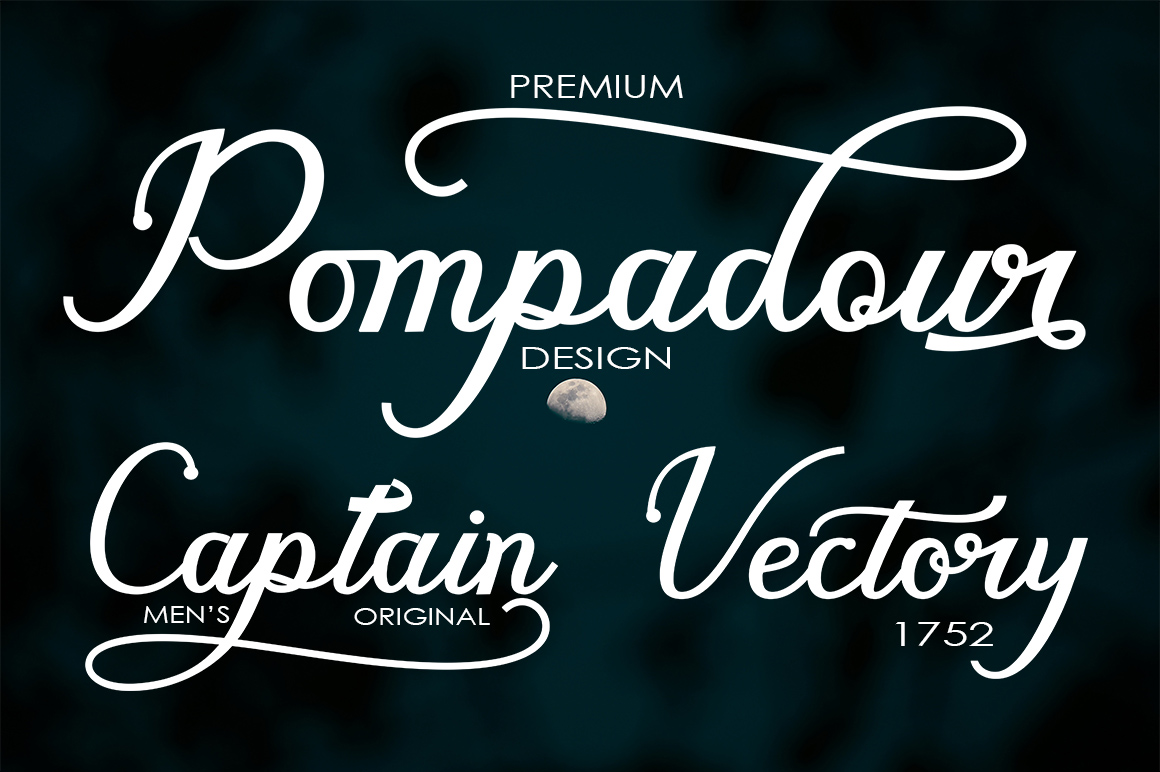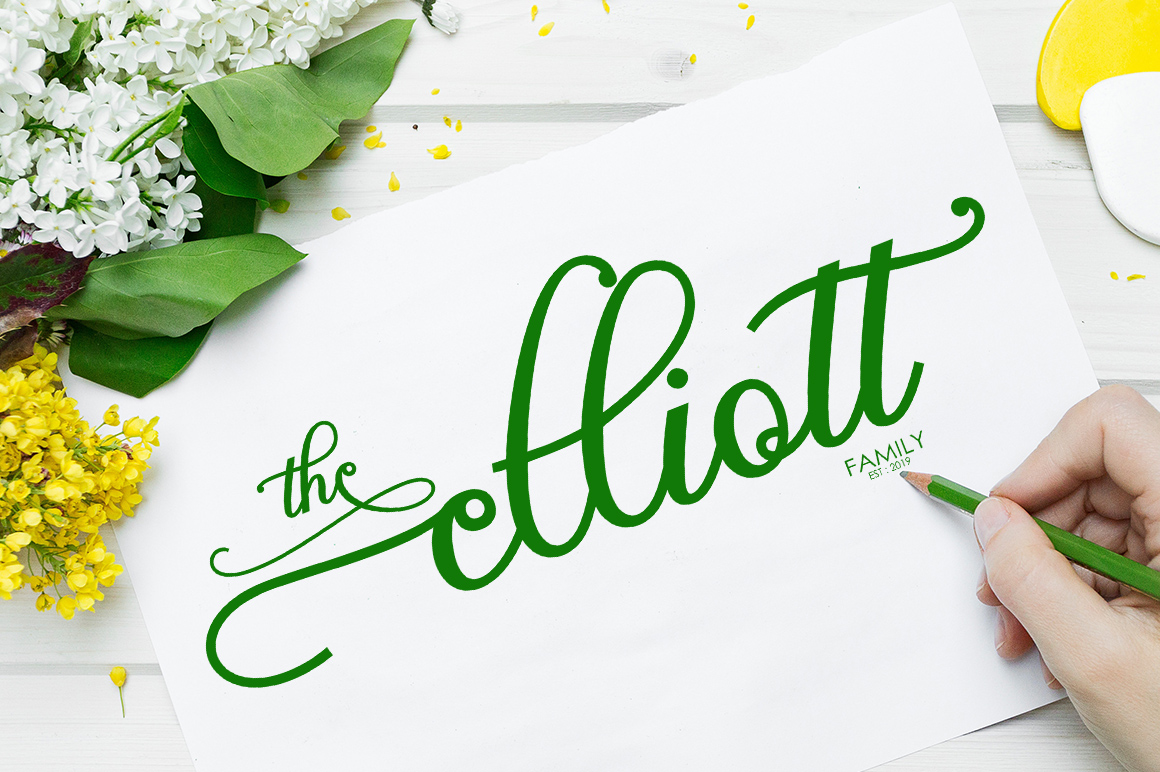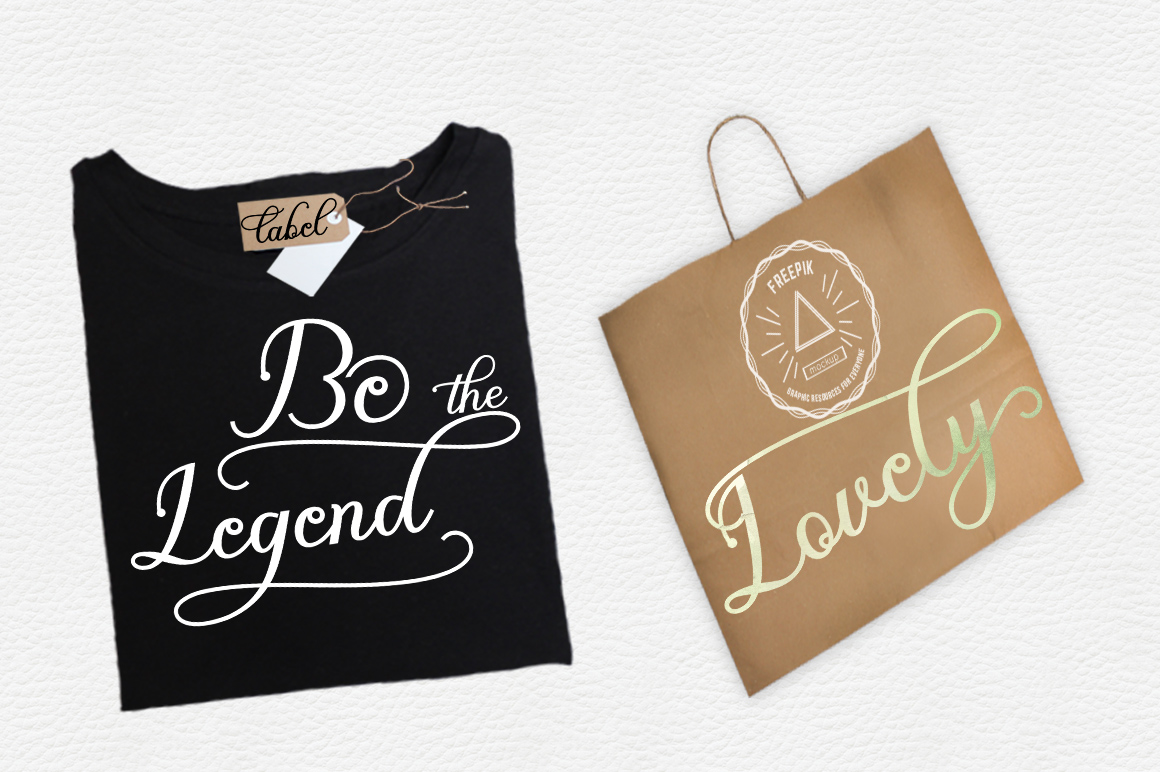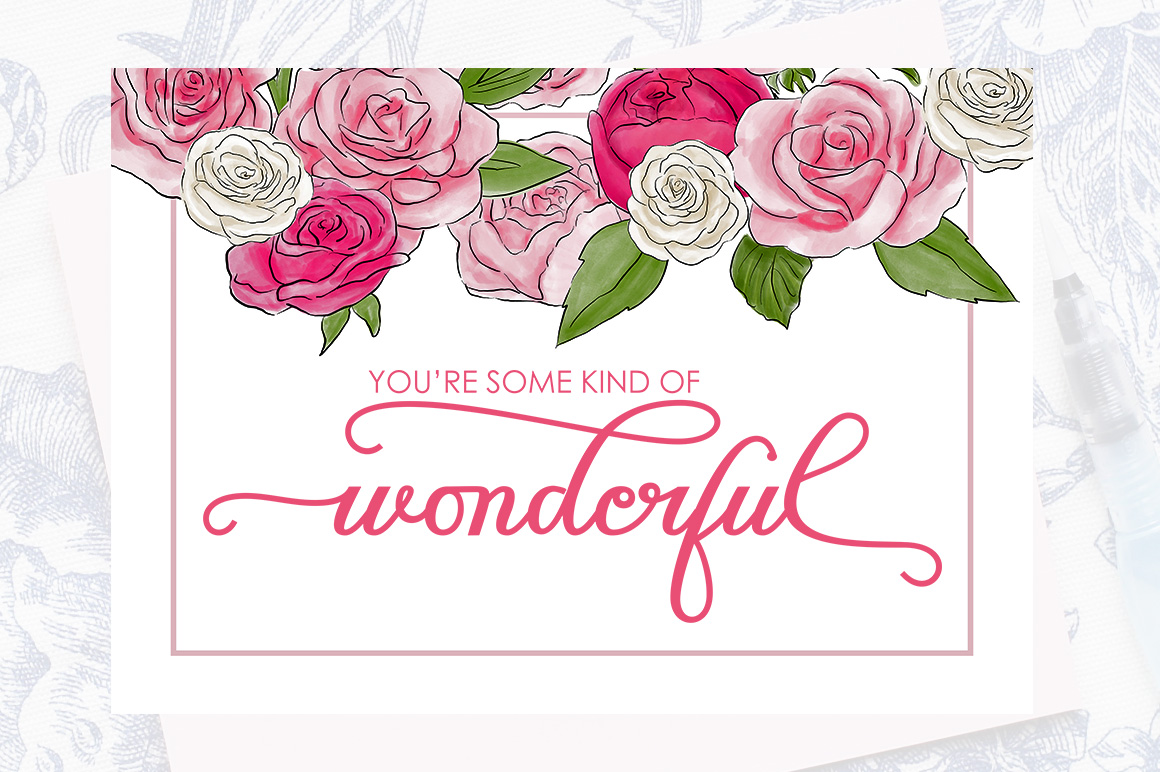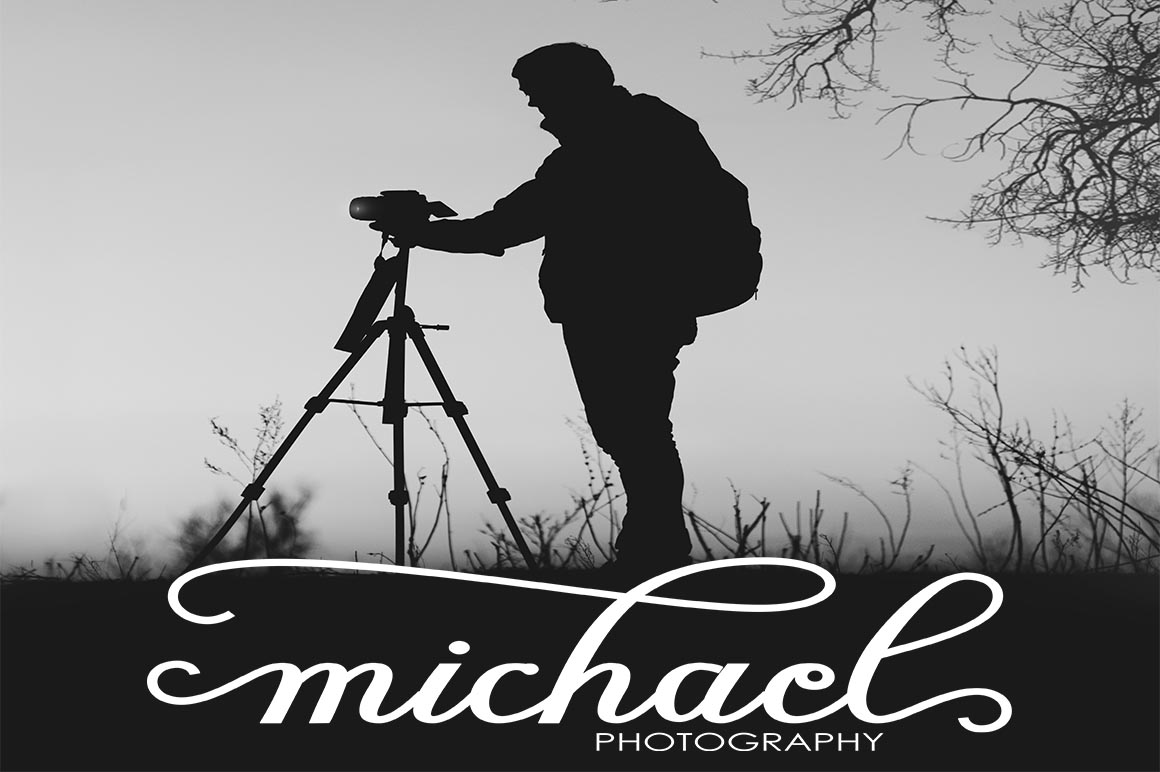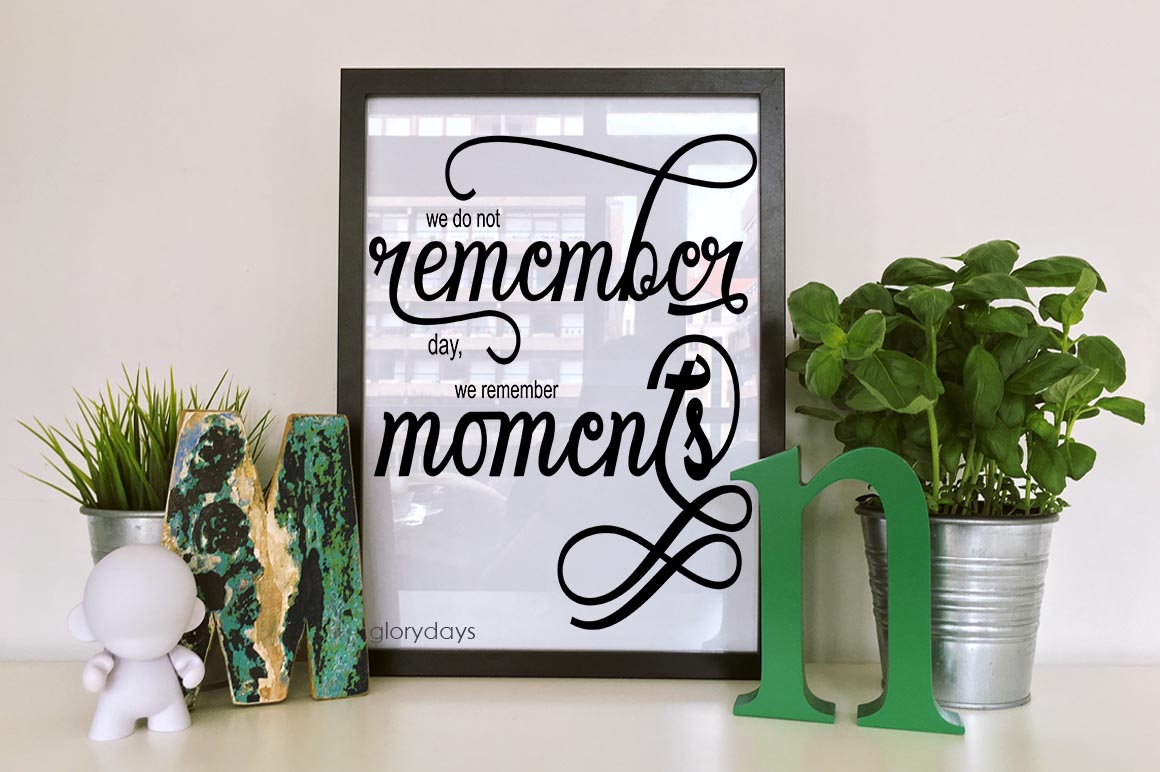
Gloretha Font: Elevate Your Designs with Modern Calligraphy
In the world of typography, few fonts manage to capture the essence of elegance and sophistication as effectively as Gloretha. This modern calligraphy-style design is a versatile and visually stunning addition to any design project, offering both regular and bold variations. What sets Gloretha apart is its exceptional readability combined with beautiful swashes, making it an ideal choice for designers and crafters looking to add a touch of luxury to their work.
The Essence of Gloretha Font
Gloretha is more than just a font; it’s a statement piece for your designs. Its calligraphy style gives it a fluid, dynamic look that’s perfect for headings, titles, and any text that needs to stand out. The font’s design ensures that it’s not only aesthetically pleasing but also highly legible, a balance that can be challenging to achieve. Whether you’re working on a branding project, a wedding invitation, or a packaging design, Gloretha offers the sophistication and elegance needed to make your work memorable.
Key Features of Gloretha
- Modern Calligraphy Style: Gloretha embodies the beauty of modern calligraphy, with flowing lines and elegant curves that add a touch of class to any design.
- Regular & Bold Variations: The font comes in two styles, allowing for flexibility in design. The regular version is perfect for body text and headings, while the bold variation can be used to draw attention or create a focal point.
- Easy to Read: Despite its decorative nature, Gloretha maintains a high level of readability. This makes it suitable for longer texts, as well as short phrases and titles.
- Stunning Swashes: One of the standout features of Gloretha is its beautiful swashes. These decorative elements can be used to add flair to your designs, making them more visually appealing and unique.
Applications of Gloretha Font
The versatility of Gloretha makes it suitable for a wide range of design projects. Here are some of the areas where Gloretha can make a significant impact:
- Branding and Logotypes: Use Gloretha to create a luxurious brand image. Its unique style can help your logo or brand name stand out.
- Wedding and Event Stationery: The elegant nature of Gloretha makes it perfect for wedding invitations, save-the-date cards, and other event-related materials.
- Packaging Design: Add a touch of sophistication to your product packaging with Gloretha. It’s especially effective for luxury goods, cosmetics, and gourmet foods.
- Digital and Print Media: Whether you’re designing a website, a magazine, or an advertisement, Gloretha can be used to create compelling headings and titles that capture attention.
Tips for Using Gloretha Effectively
To make the most of Gloretha, consider the following tips:
- Mix and Match: Combine Gloretha with simpler fonts for body text to create contrast and visual interest.
- Utilize Swashes: Don’t be afraid to experiment with the swashes to add a unique touch to your designs.
- Adjust Size and Color: Play with the size and color of Gloretha to ensure it complements the rest of your design.
Gloretha font is a powerful tool for designers and crafters aiming to infuse their projects with elegance and modernity. Its calligraphy-style design, combined with its readability and beautiful swashes, makes it an excellent choice for a variety of applications. By incorporating Gloretha into your design repertoire, you can elevate your work and create visually stunning pieces that leave a lasting impression.